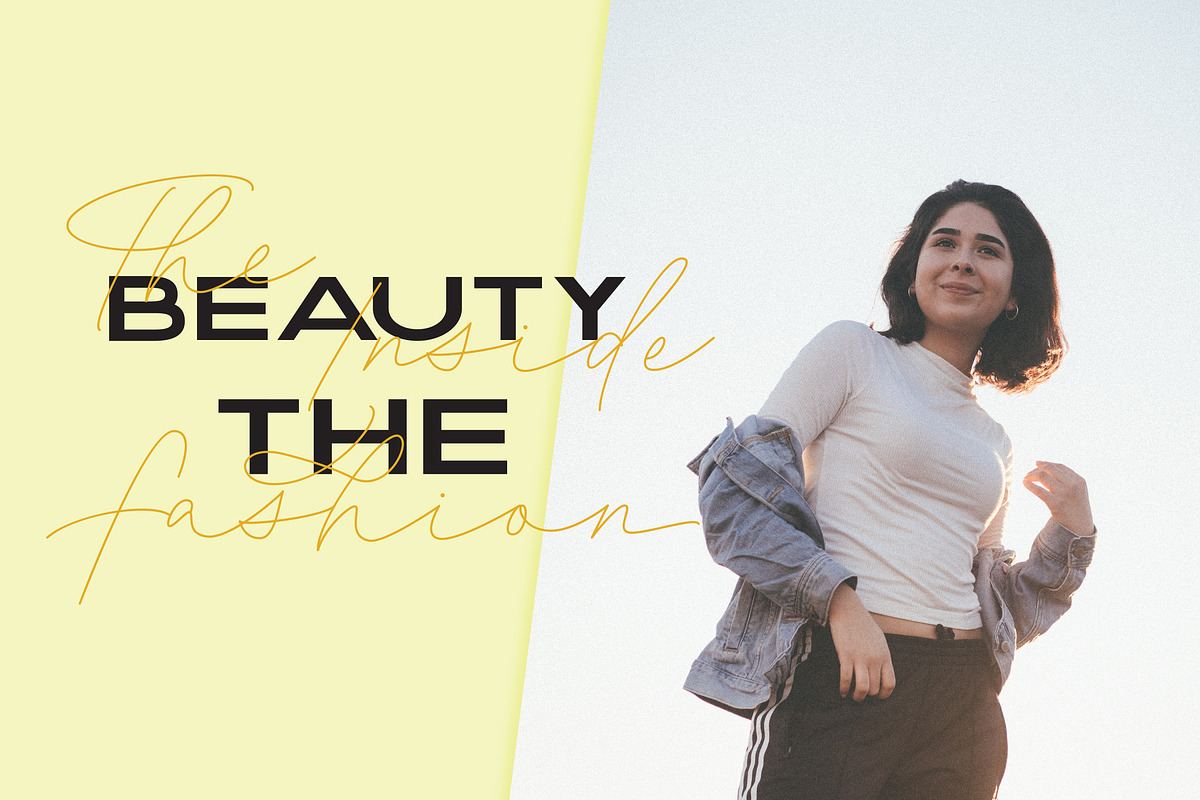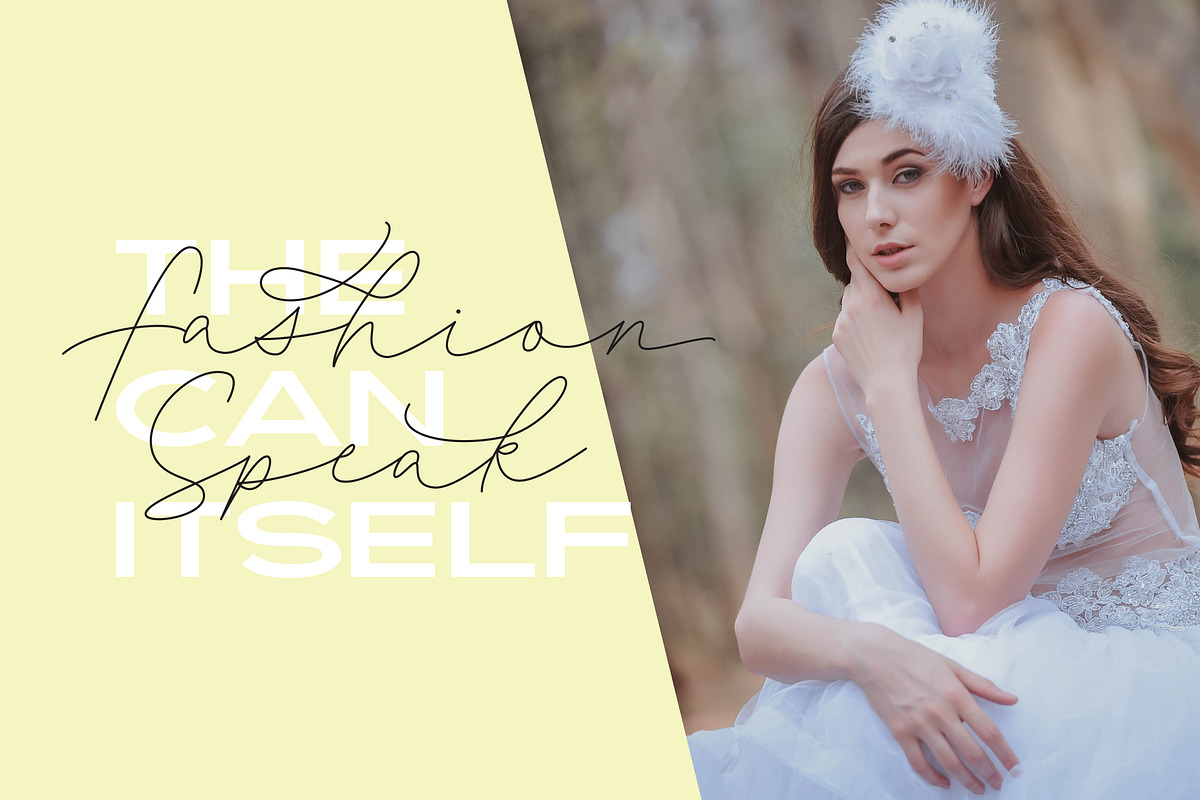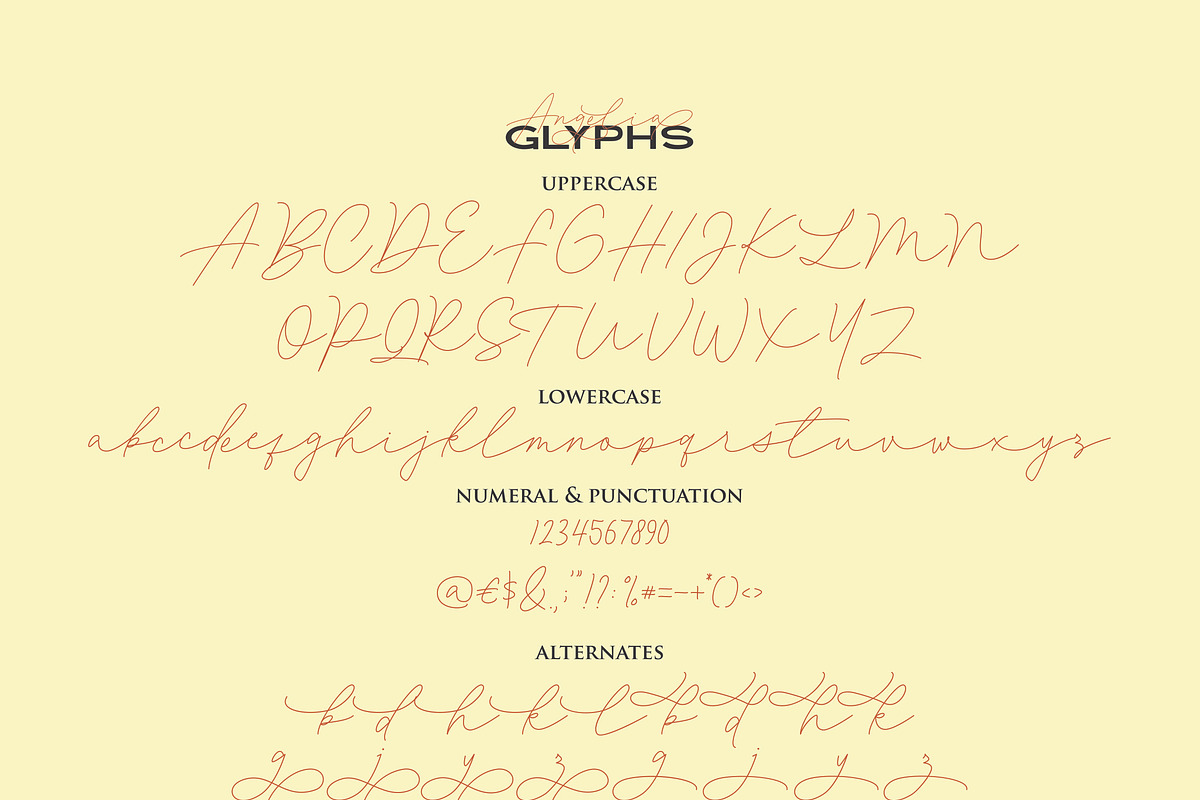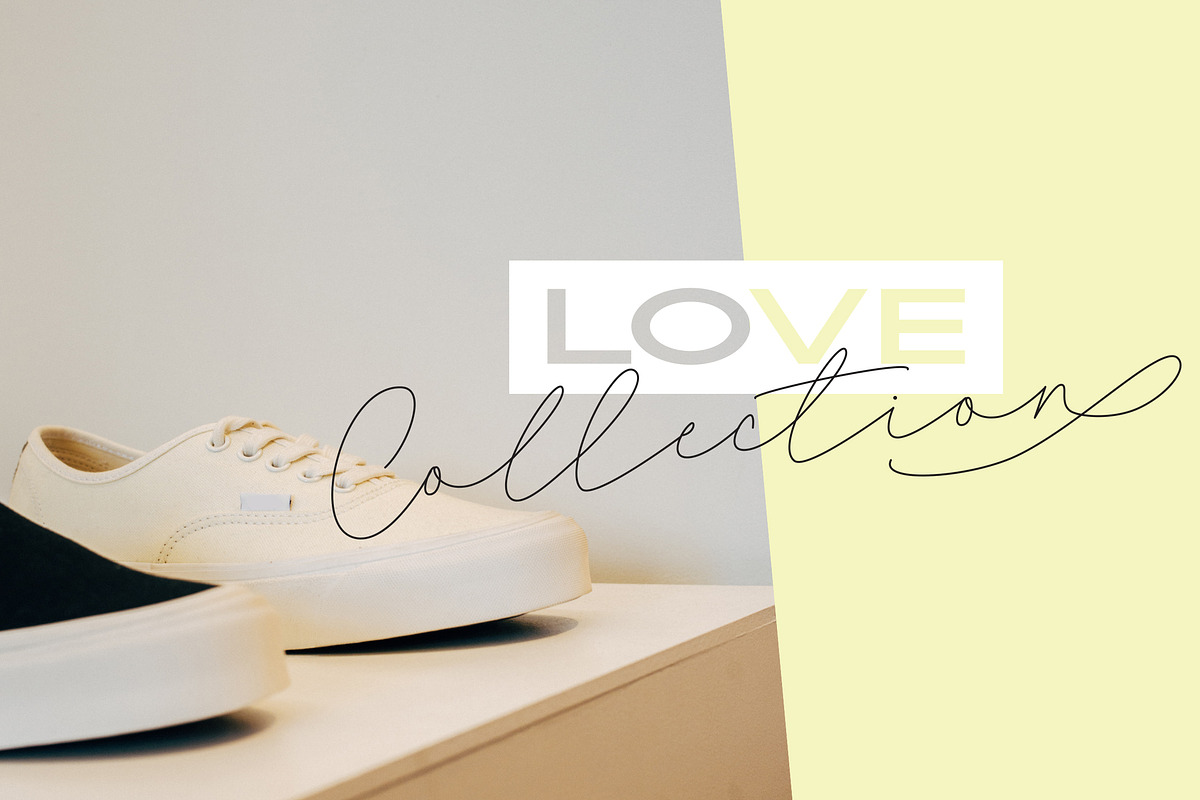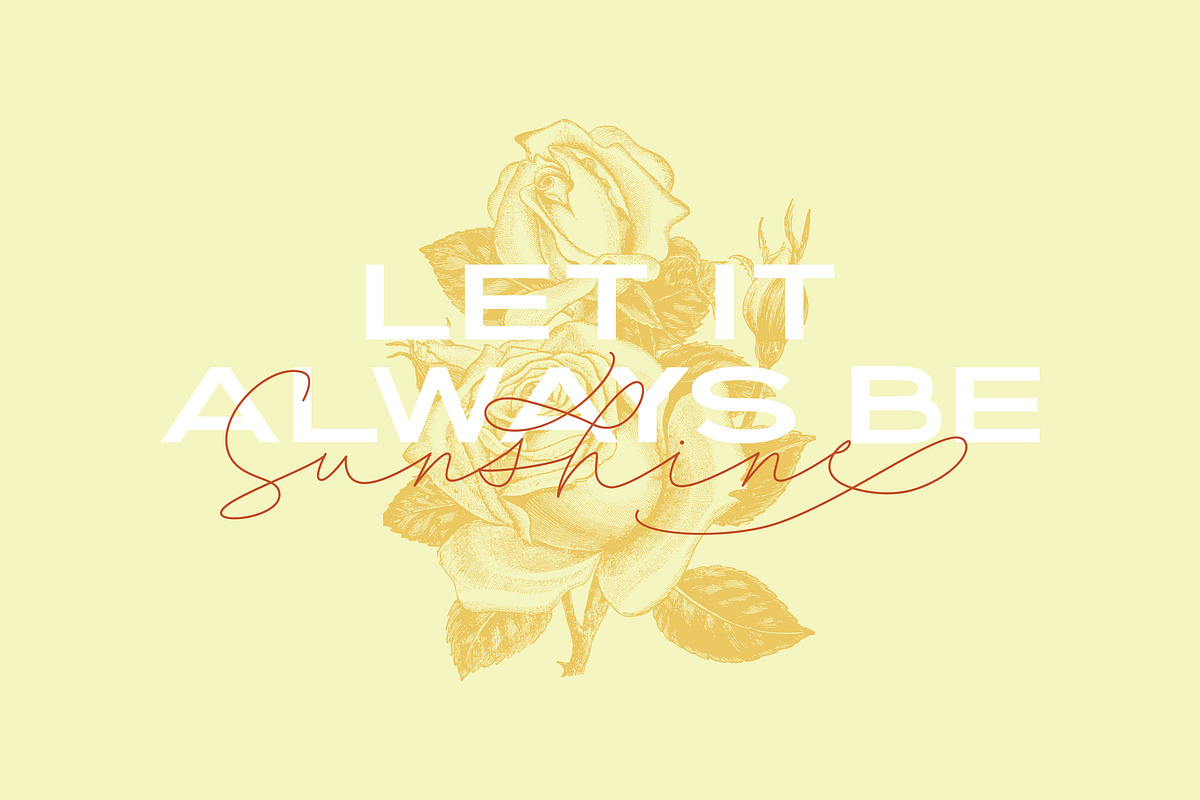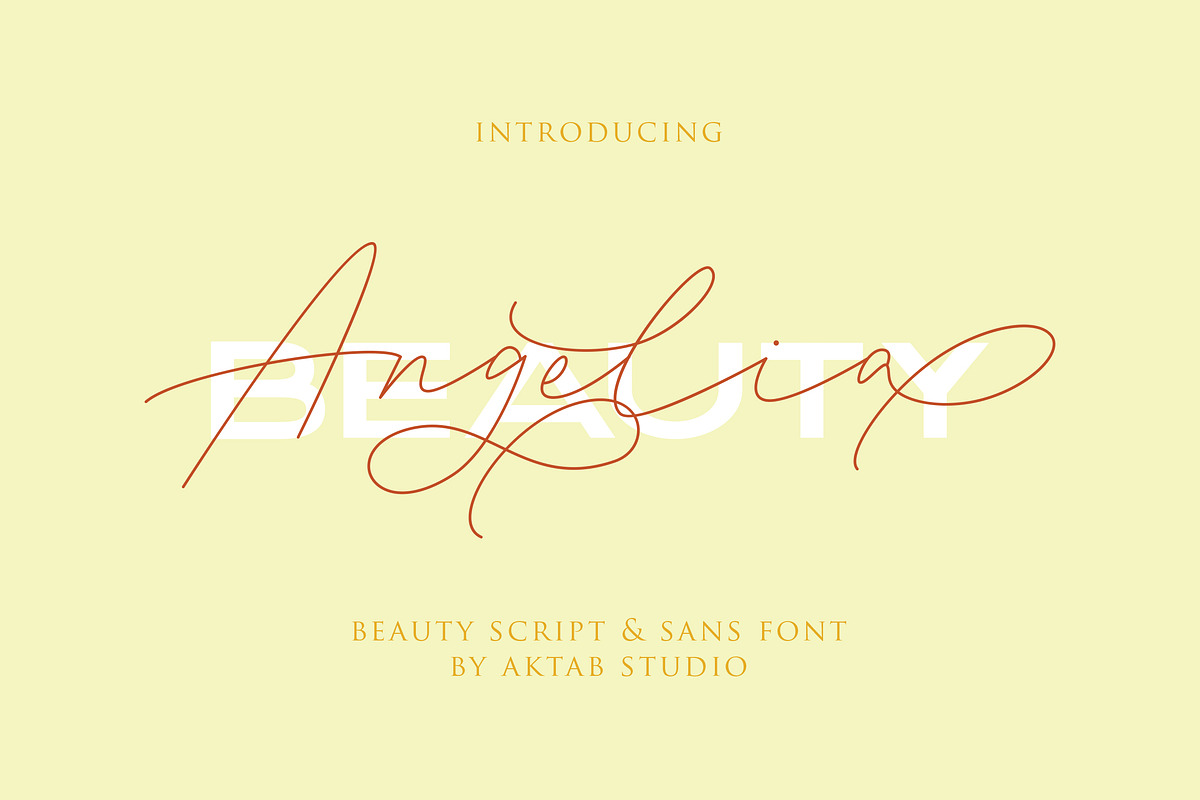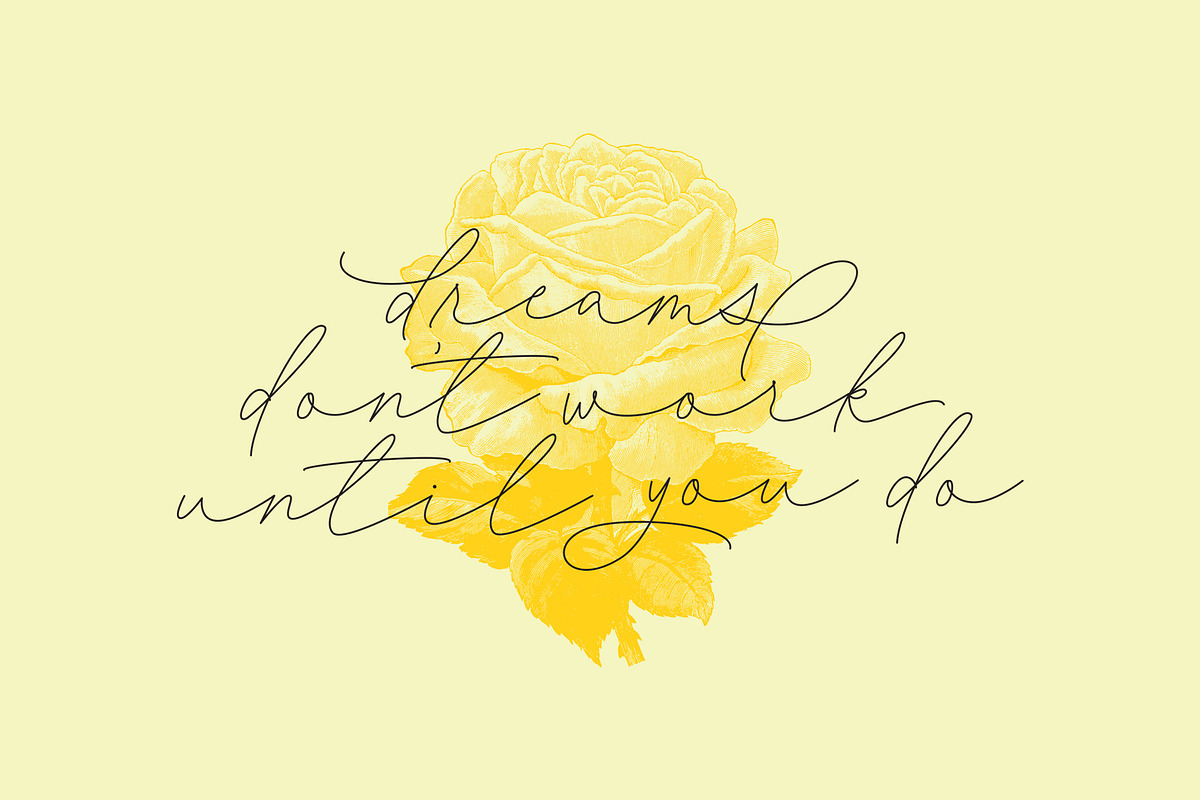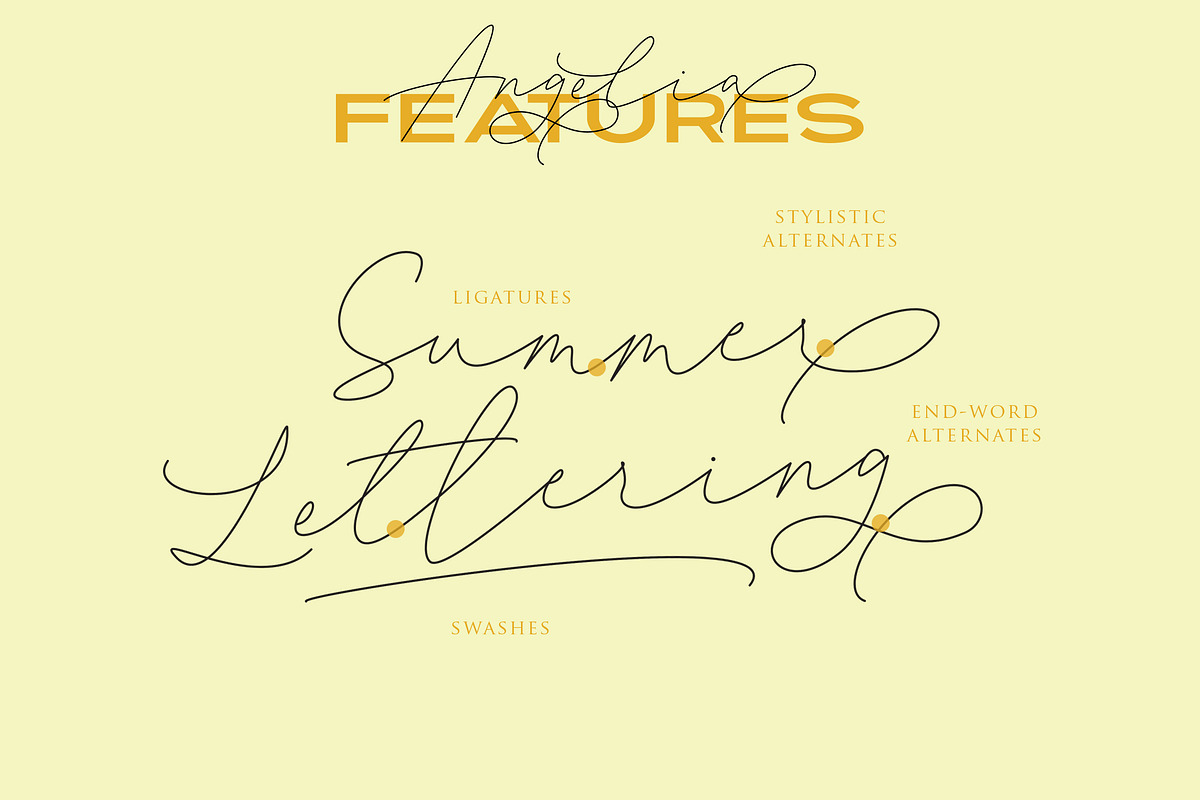
Angelia Font Duo
Angelia is a handwritten calligraphy font with delicate touches and fancy curves. It's perfect for branding, event invitations, beautiful Instagram posts. You will like them! :)
Why Angelia Font Duo is worth a look
Angelia Font Duo by Aktab Studio fits naturally into Branding, posters, packaging, typography.